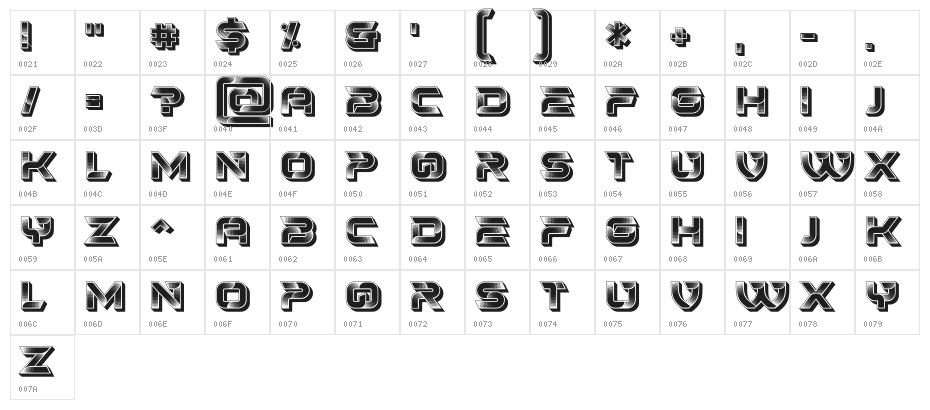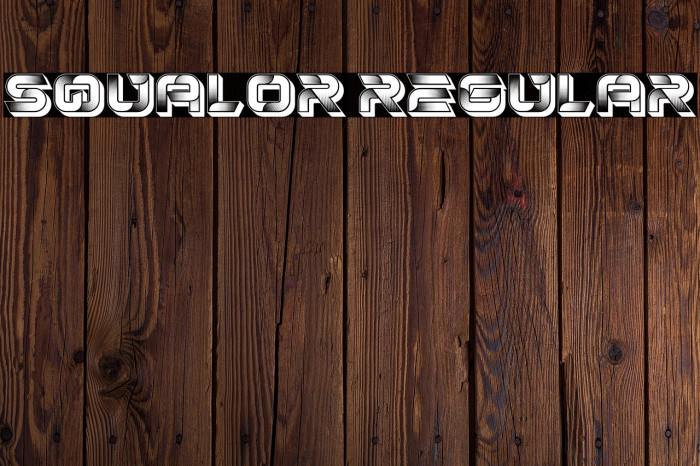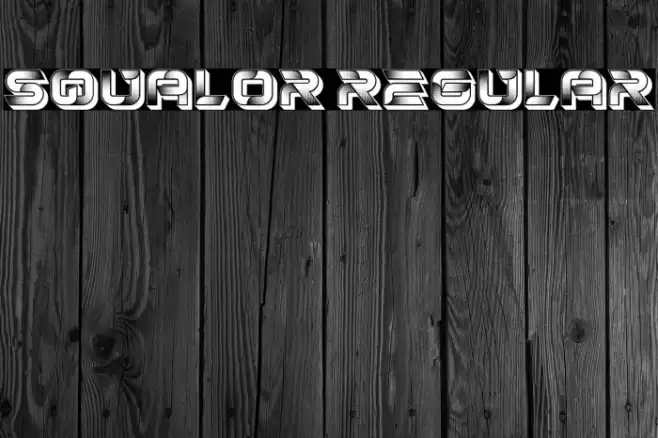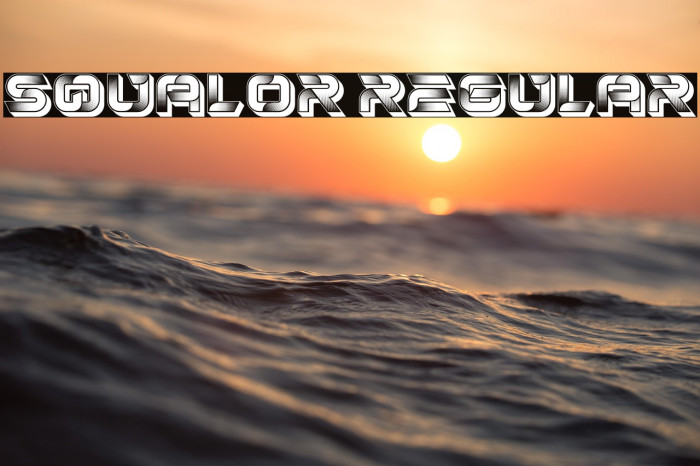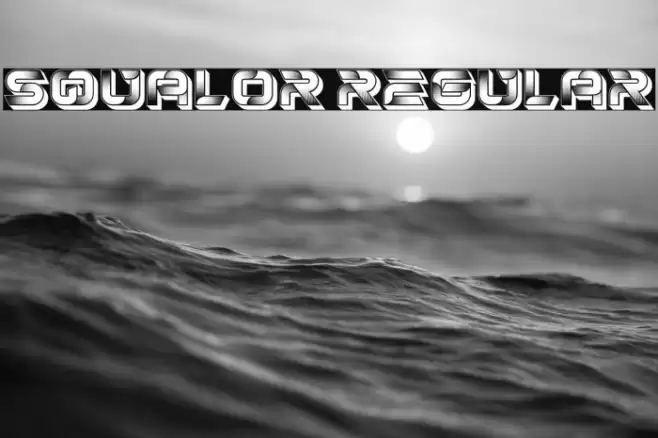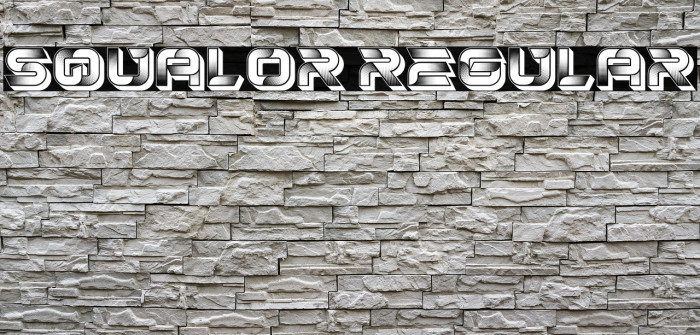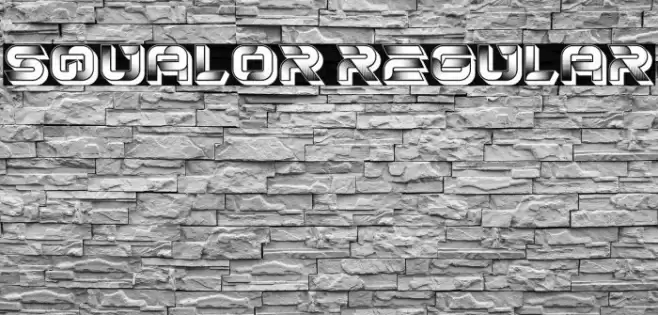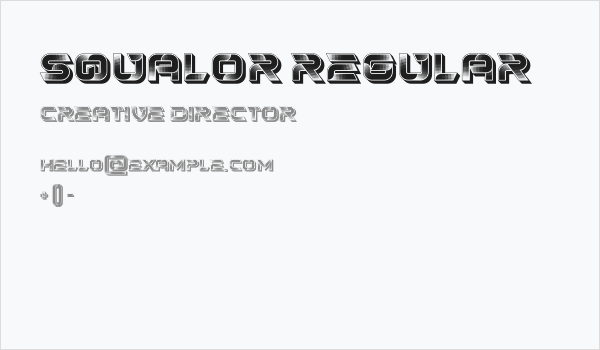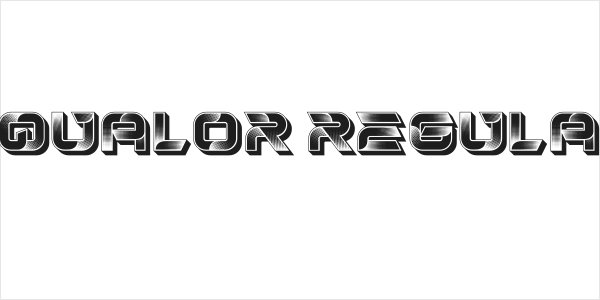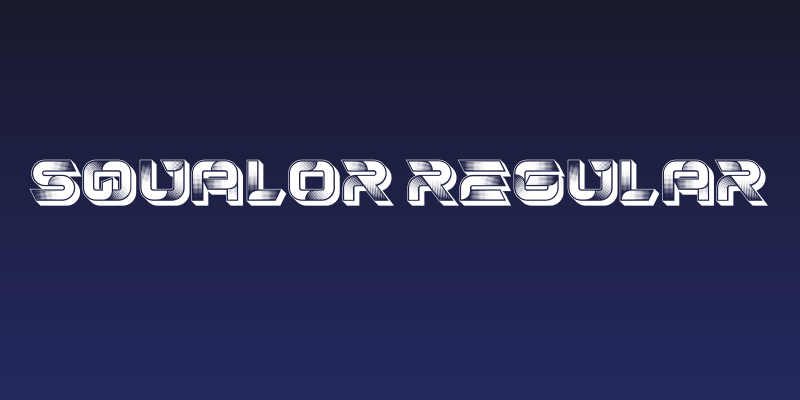
Squalor Regular Font
Squalor Regular Description
This font features a bold, futuristic design with a three-dimensional effect that gives it a striking appearance. The letters are constructed with a combination of solid and striped patterns, creating a sense of movement and depth. The geometric shapes and sharp angles contribute to its modern aesthetic, while the consistent use of shading enhances the visual impact. Each character is uniquely styled, maintaining a cohesive look across uppercase, lowercase, numbers, and special characters. The font's distinct style makes it ideal for projects that require a strong, eye-catching typeface.
Overall StyleFuturistic, Modern
Proposed ProjectsIdeal for sci-fi themed posters, video game titles, technology branding, and futuristic event invitations.